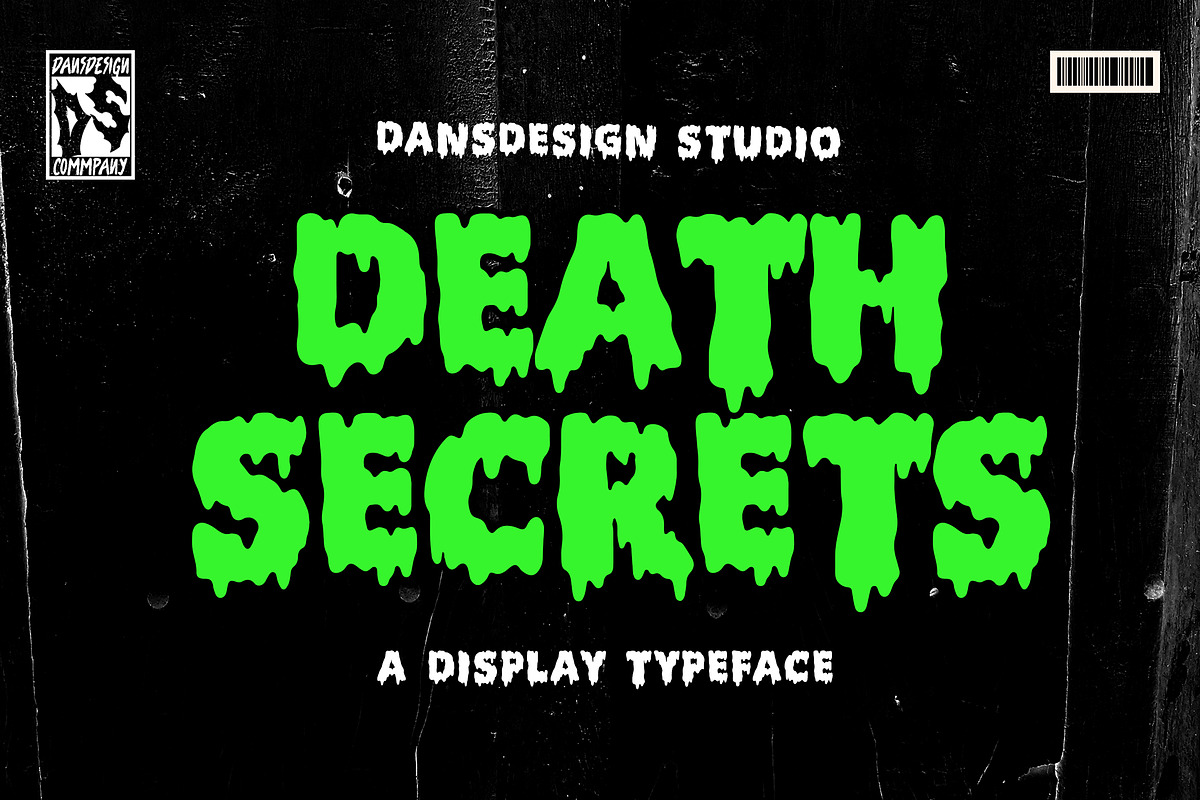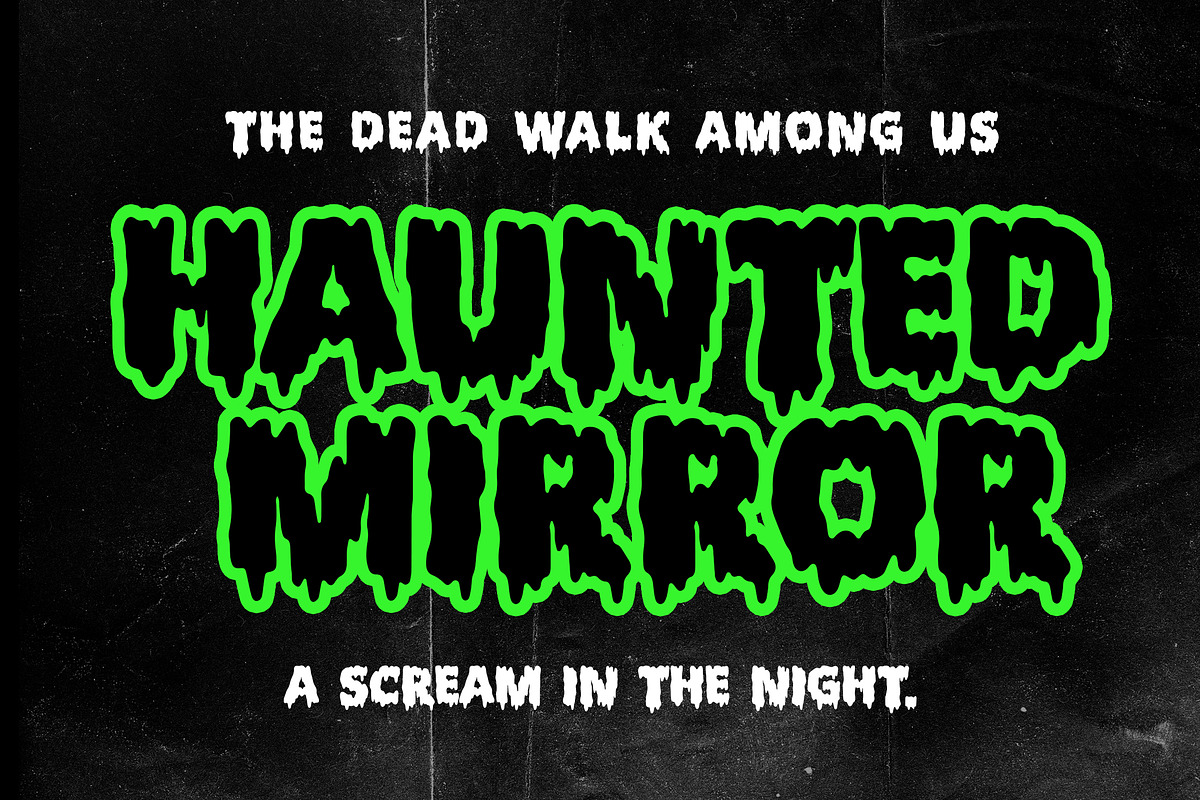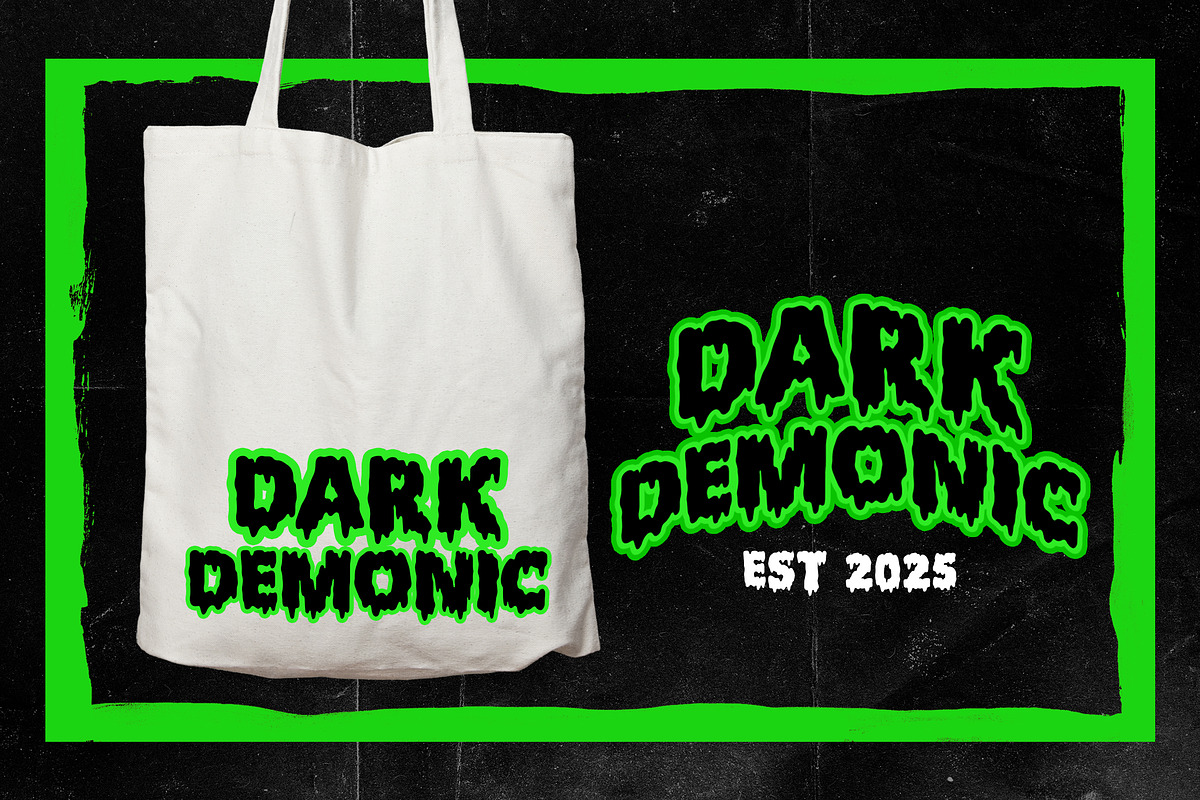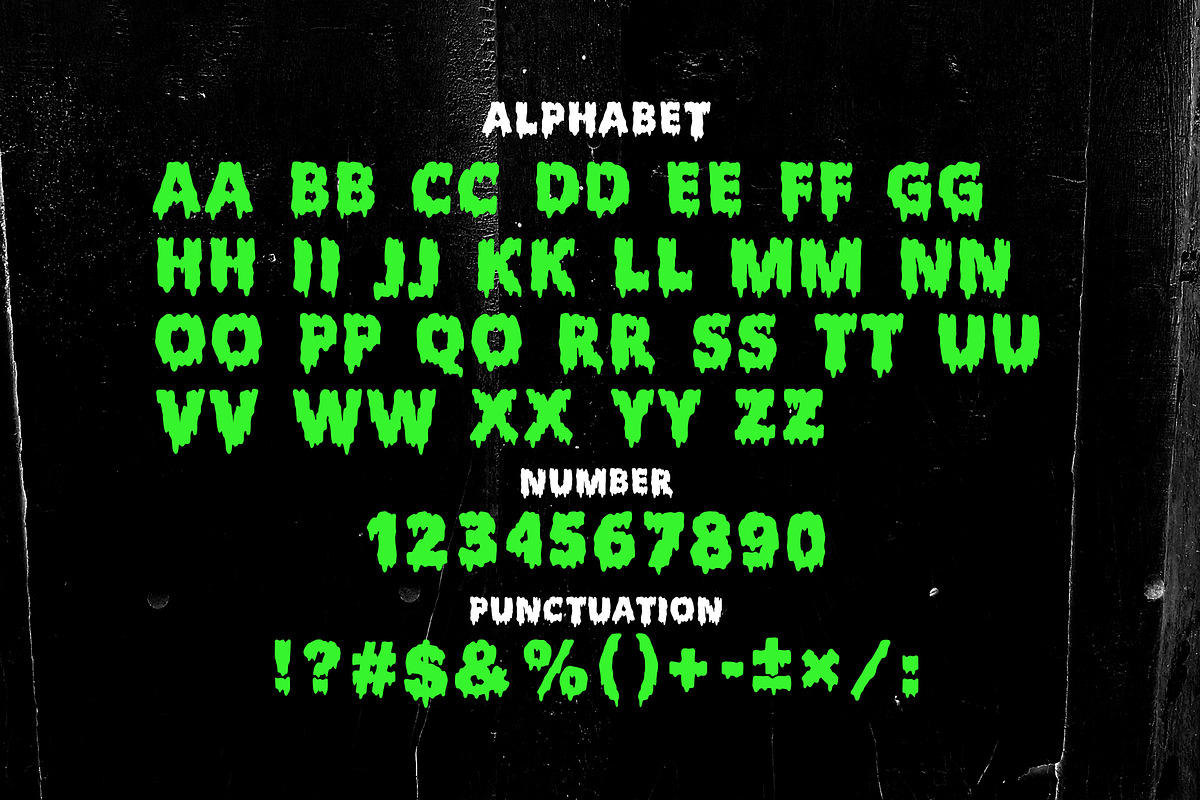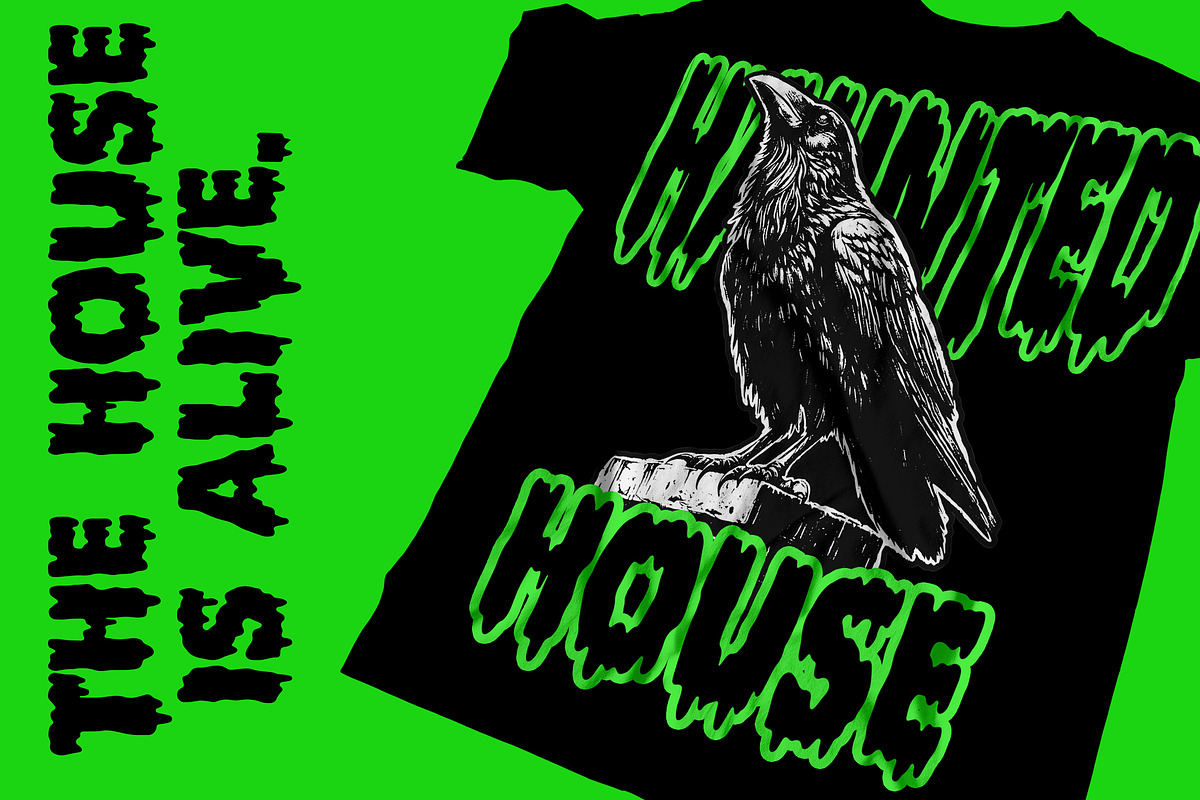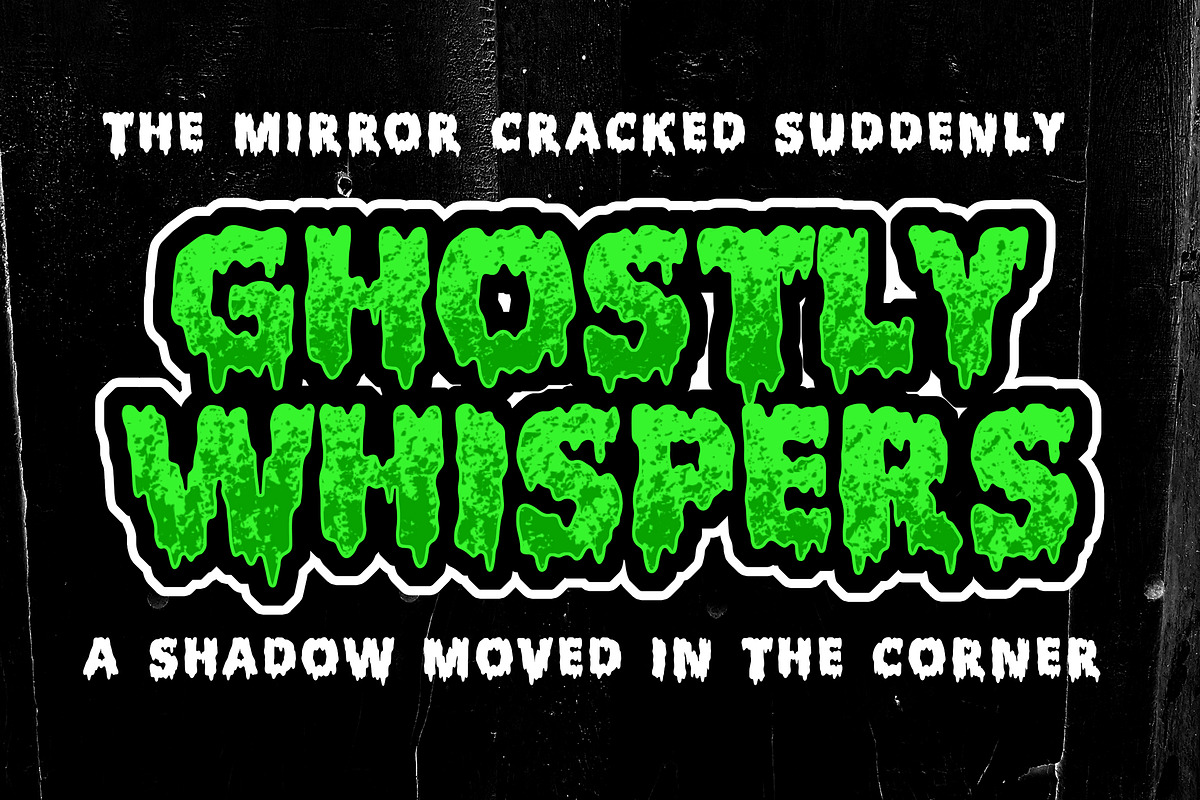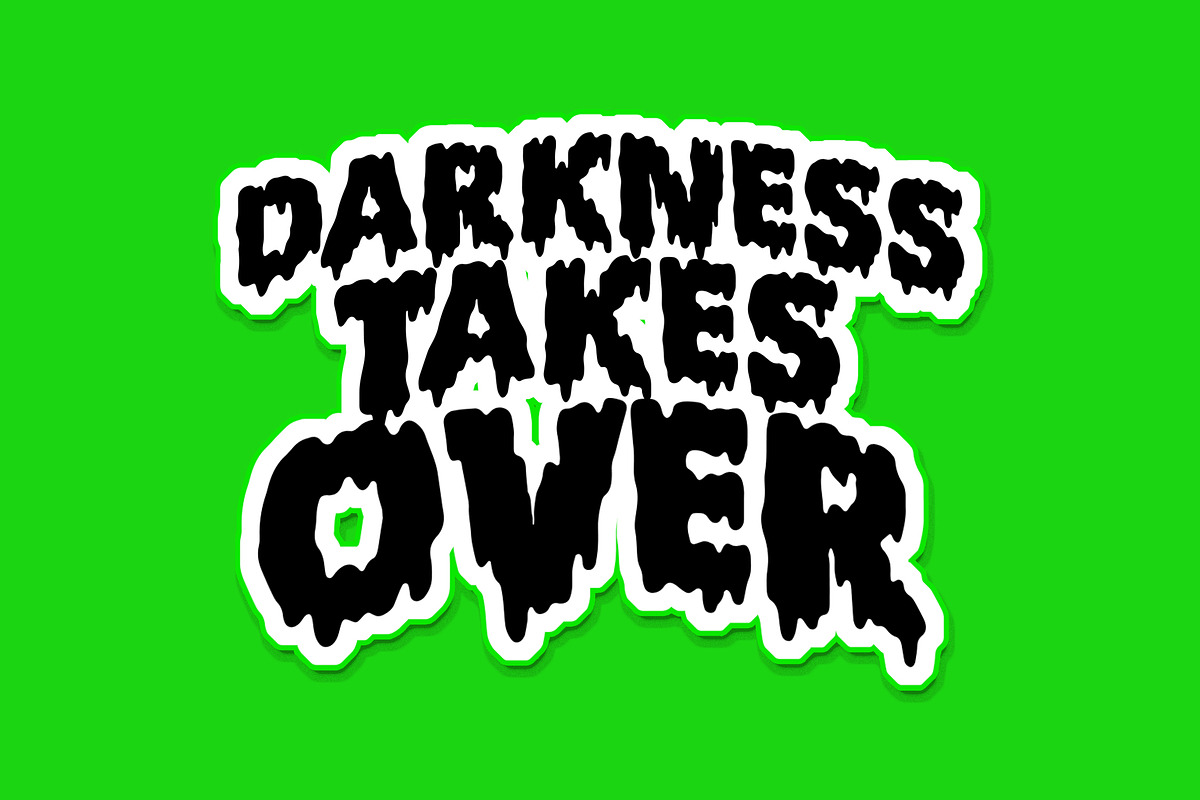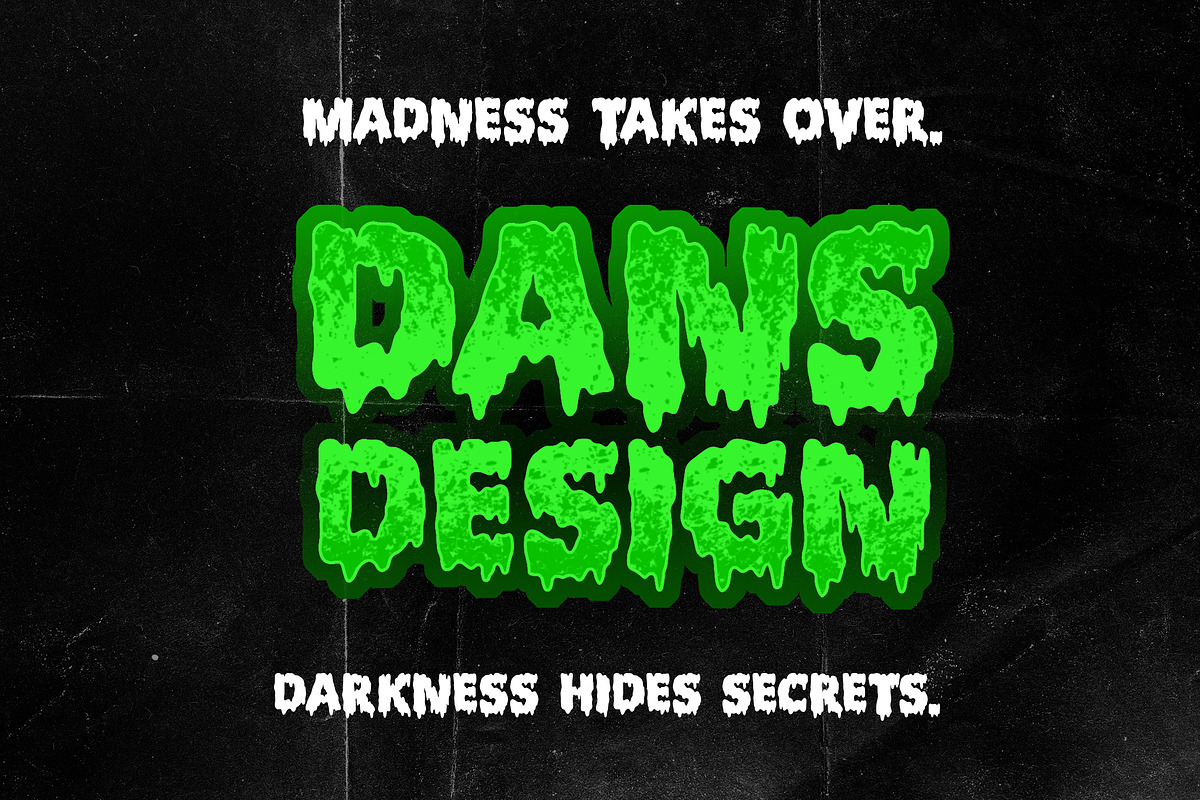
Death Secrets Halloween Melting
Death Secrets Horror Melted Display Font a distinct, highly detailed. Marker Display Font. It would make a great choice for exquisite retro-urban designs, business branding, logos, Apparel designs, and more.